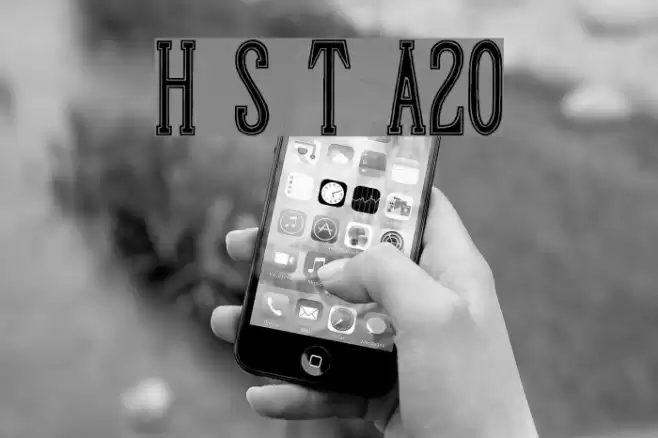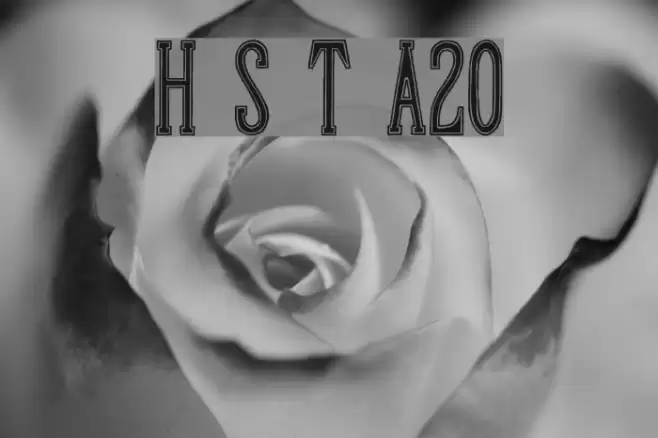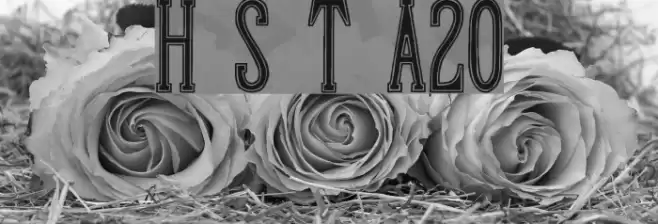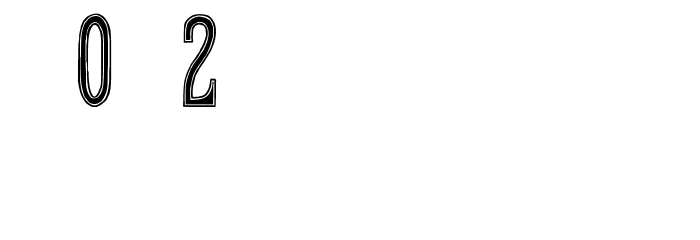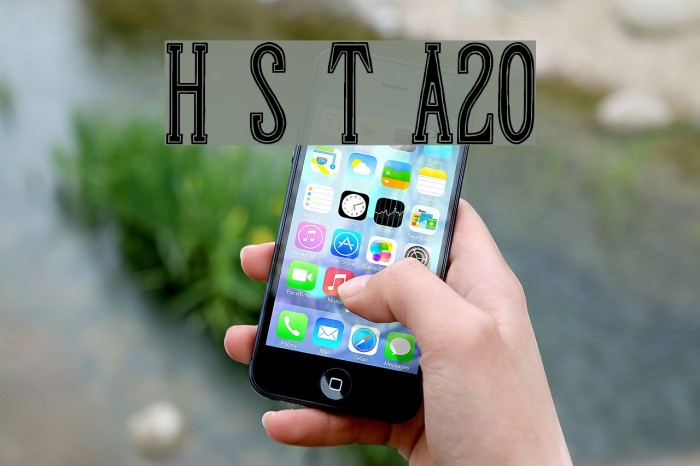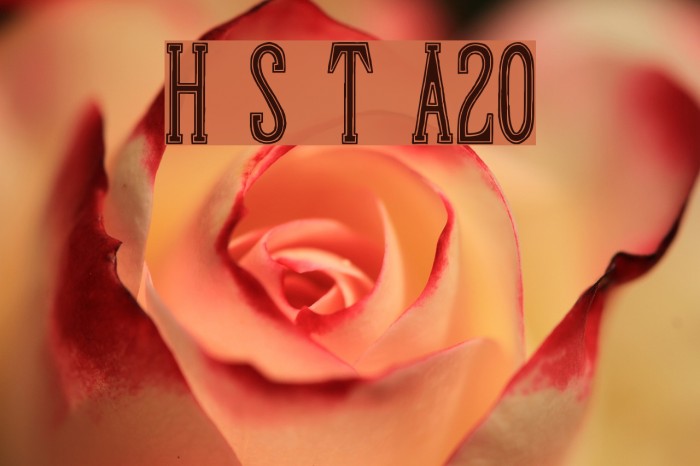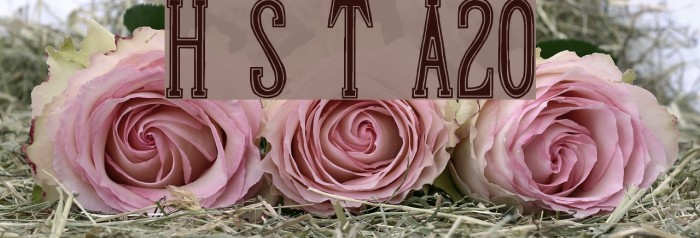
Hand Shop Typography A20_demo Font
Hand Shop Typography A20_demo Description
This font features a bold and decorative style with a vintage flair. The uppercase letters are characterized by a strong, outlined design that gives them a three-dimensional appearance. The strokes are consistent in width, providing a uniform look across all characters. The font lacks lowercase letters and includes only a few numerals, which are similarly styled with bold outlines. The overall aesthetic is reminiscent of classic signage or poster typography, making it ideal for projects that require a touch of nostalgia or a standout headline.
A bold, decorative font with a vintage, outlined style from Uncategorized fonts.
- Proposed Projects: Ideal for vintage-themed posters, signage, branding, and headlines that require a bold statement.
- Overall Style: Vintage